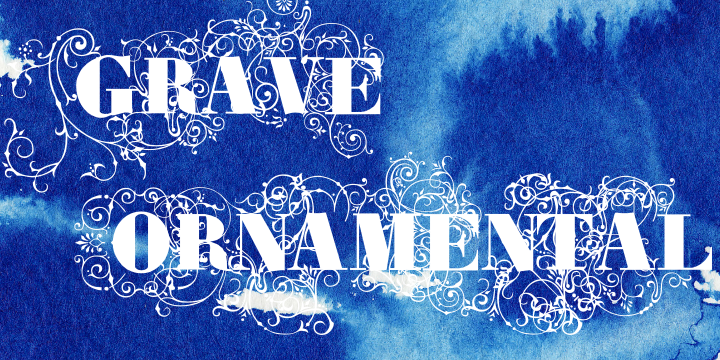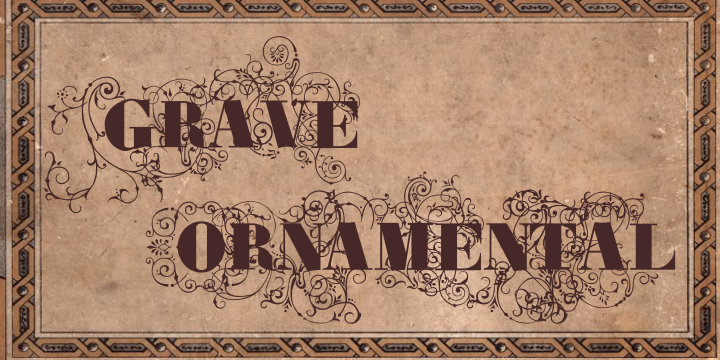
Grave is a Intellecta’s best seller, a classic font design remastered, distressed and antique, merging the bodonian style with tendrils and victorian ornaments. Ideal to use in in display purposes for a stylized type design.
Its family of fonts has too Grave Ornaments, a dingbat/decorative display font featuring many different styles of flourishes and ornaments, great for a vintage antique feel.
Completes the collection Grave Plus, where six different fonts has different styles of victorian fleurons and ornaments merging with a bodonian shaded typeface in great style.
About Intellecta Design
Intellecta Design is a Brazilian typefoundry interested in typographical research and revivals of all forms of ancient typefaces and handwriting styles. It searches historical churches, museums and similar institutions to develop handwriting and other fonts from old documents. This kind of research is not common in Brazil.
In addition, its design team also works to create new and modern typefaces for all applications.
Intellecta Design claims to be the creator and owner of the largest typeface library in Latin America.